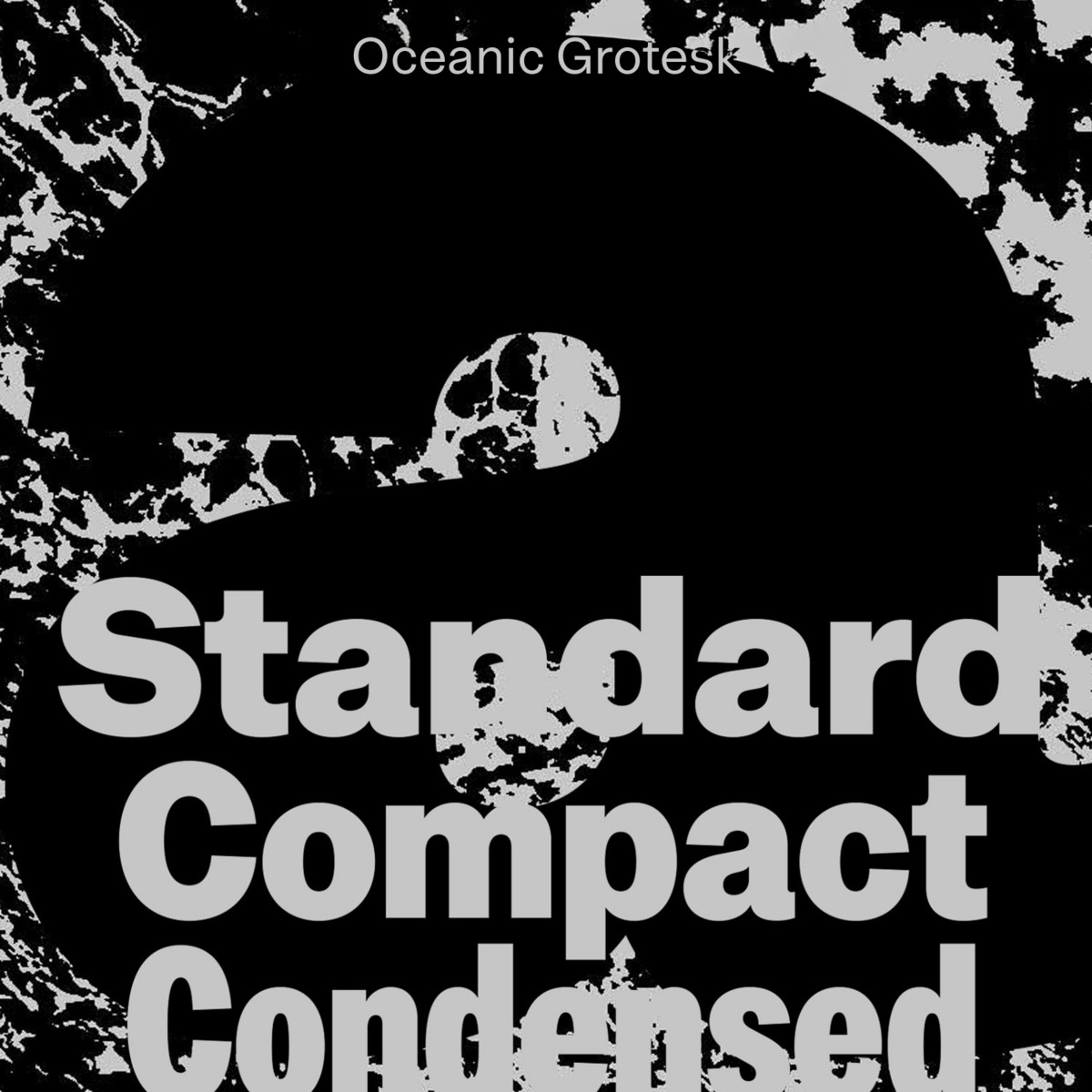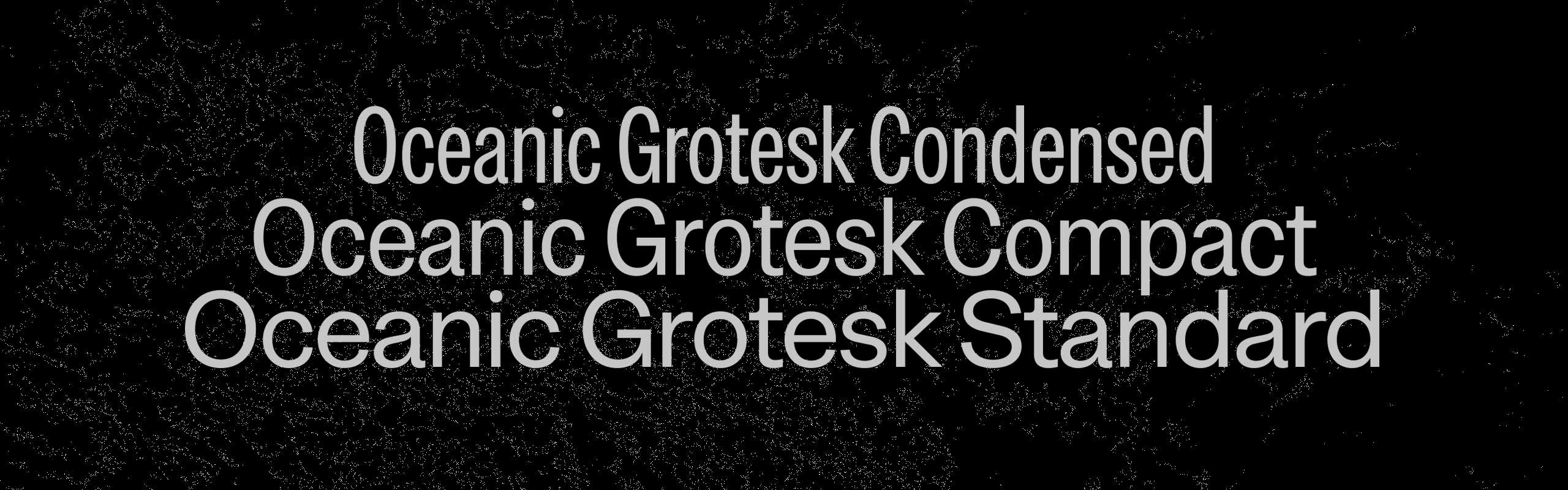
Oceanic collection now has two new sans family members, the narrow Oceanic Grotesk Compact and Oceanic Grotesk Condensed, an even narrower one. Just like the Standard Oceanic Grotesk, they embrace a Modernist approach to typography of the mid-20th century and will work great paired with serifs from the very same family.
Oceanic Grotesk Compact and Oceanic Grotesk Condensed are versatile tools, perfect for space-saving scenarios. Each face comes in six weights from Light to Poster, with italics for each.
Like the entire Oceanic family, Oceanic Grotesk was designed at the young French foundry Interval Type. The team also authored Rooftop and Facor A &B collections available on type.today and Stravinsky from the tomorrow storefront.